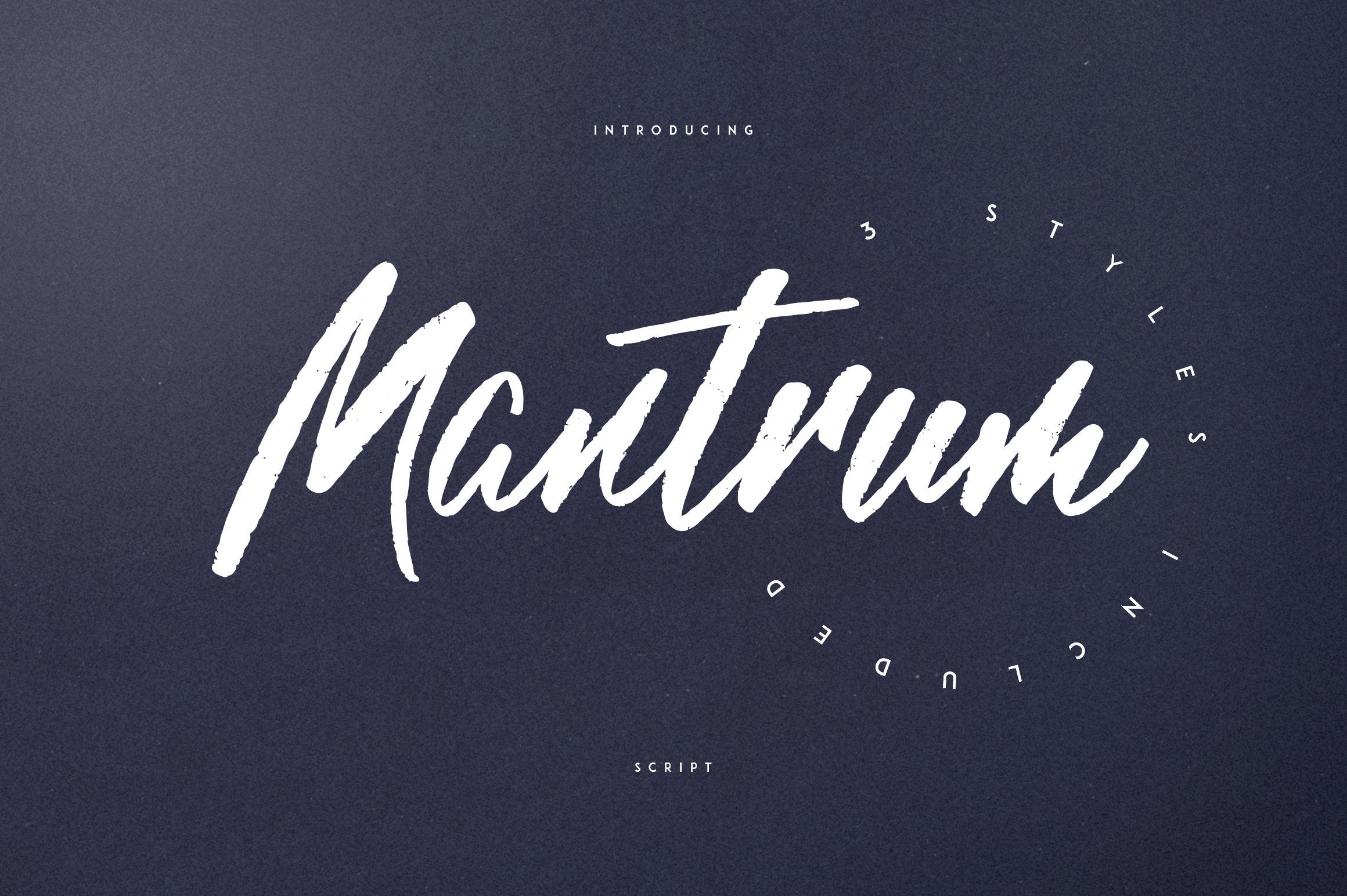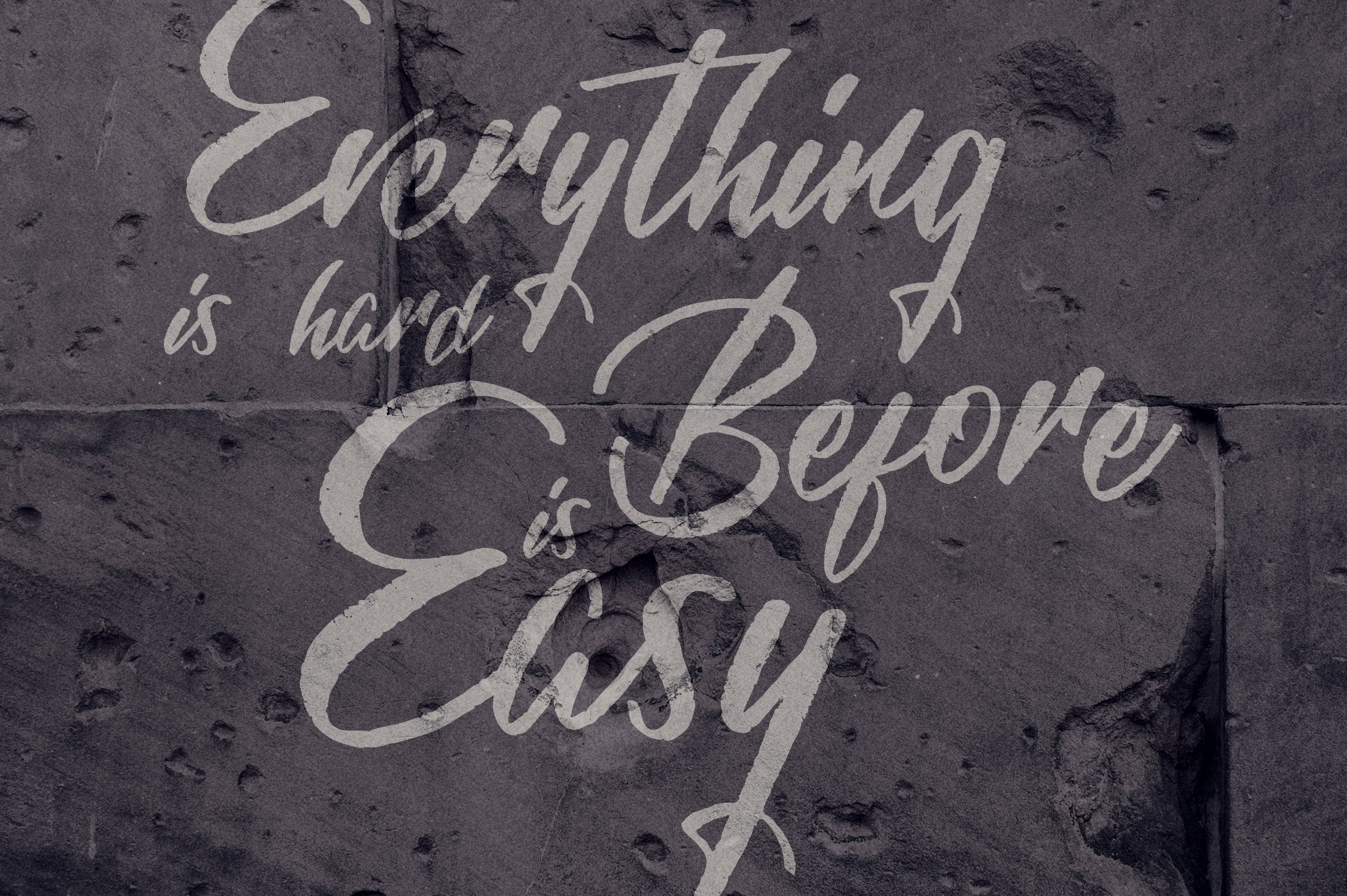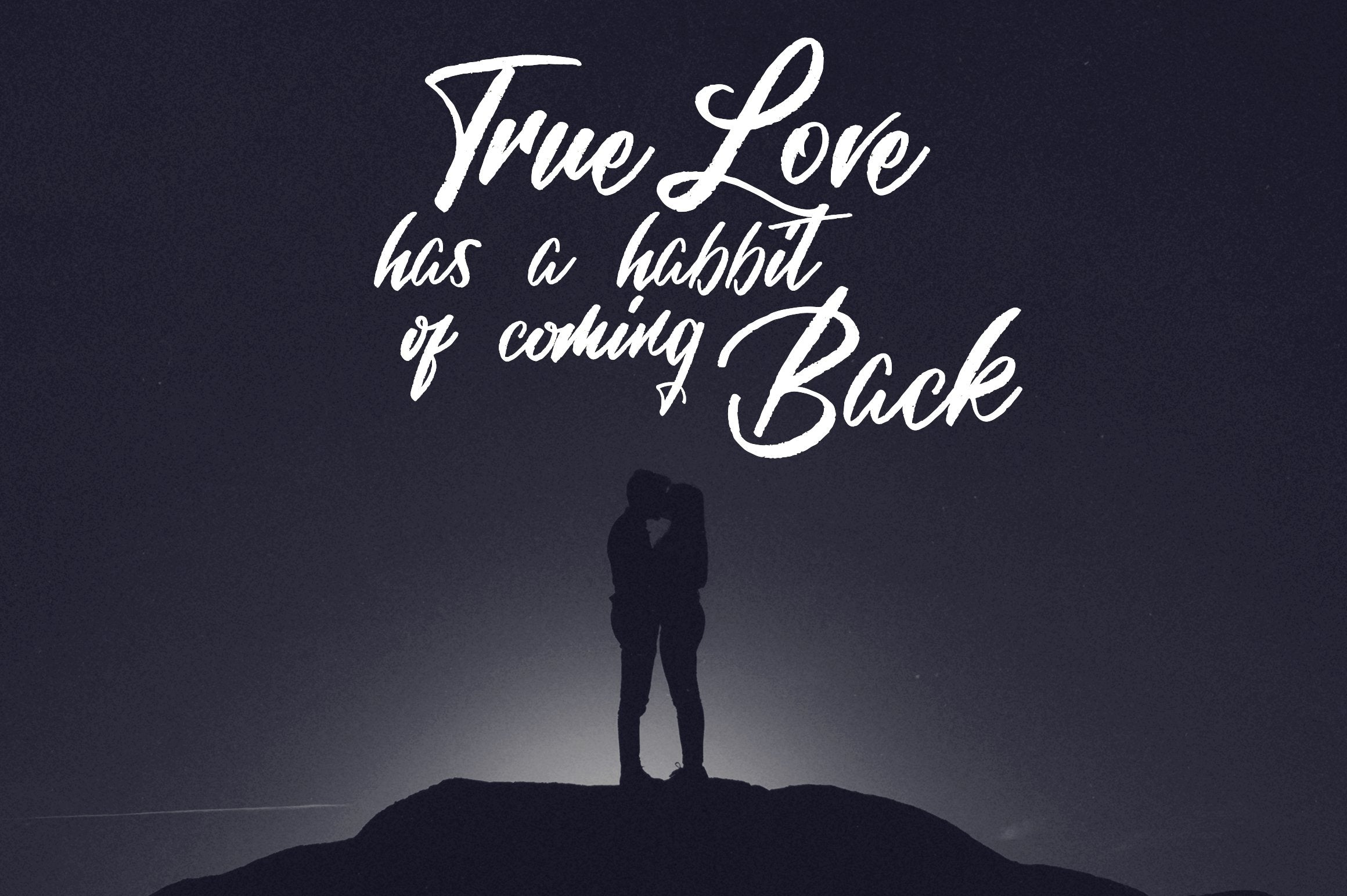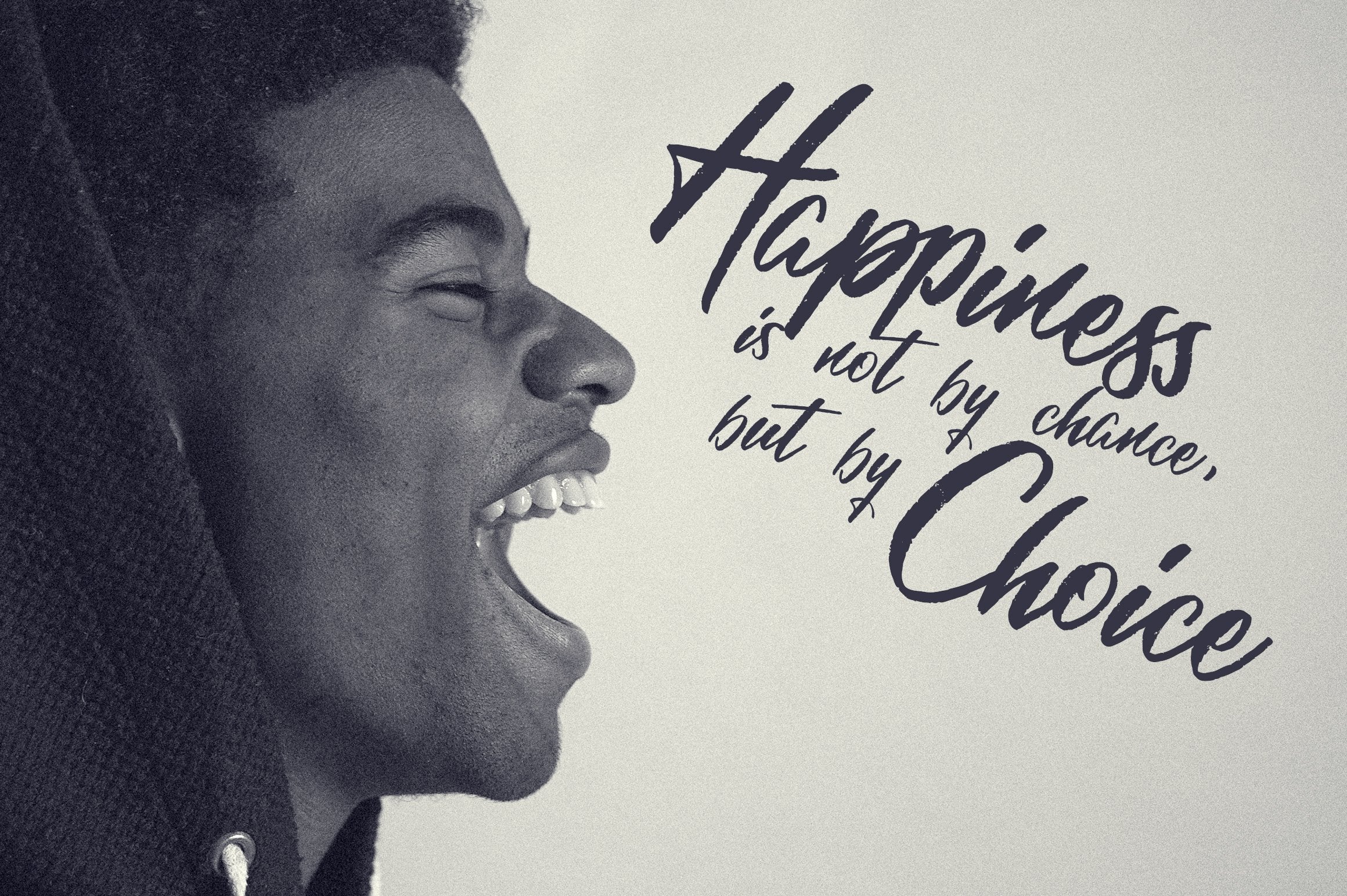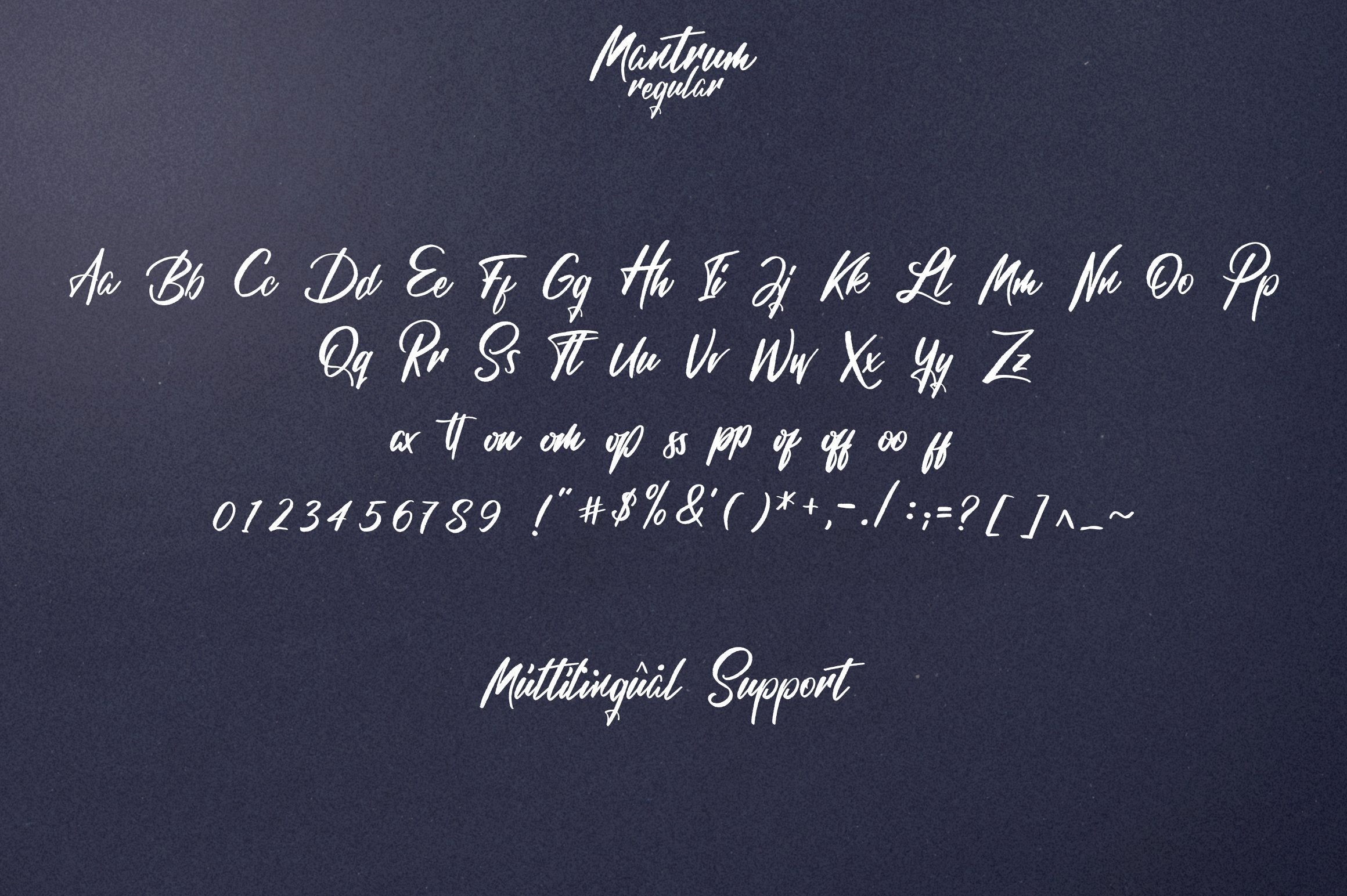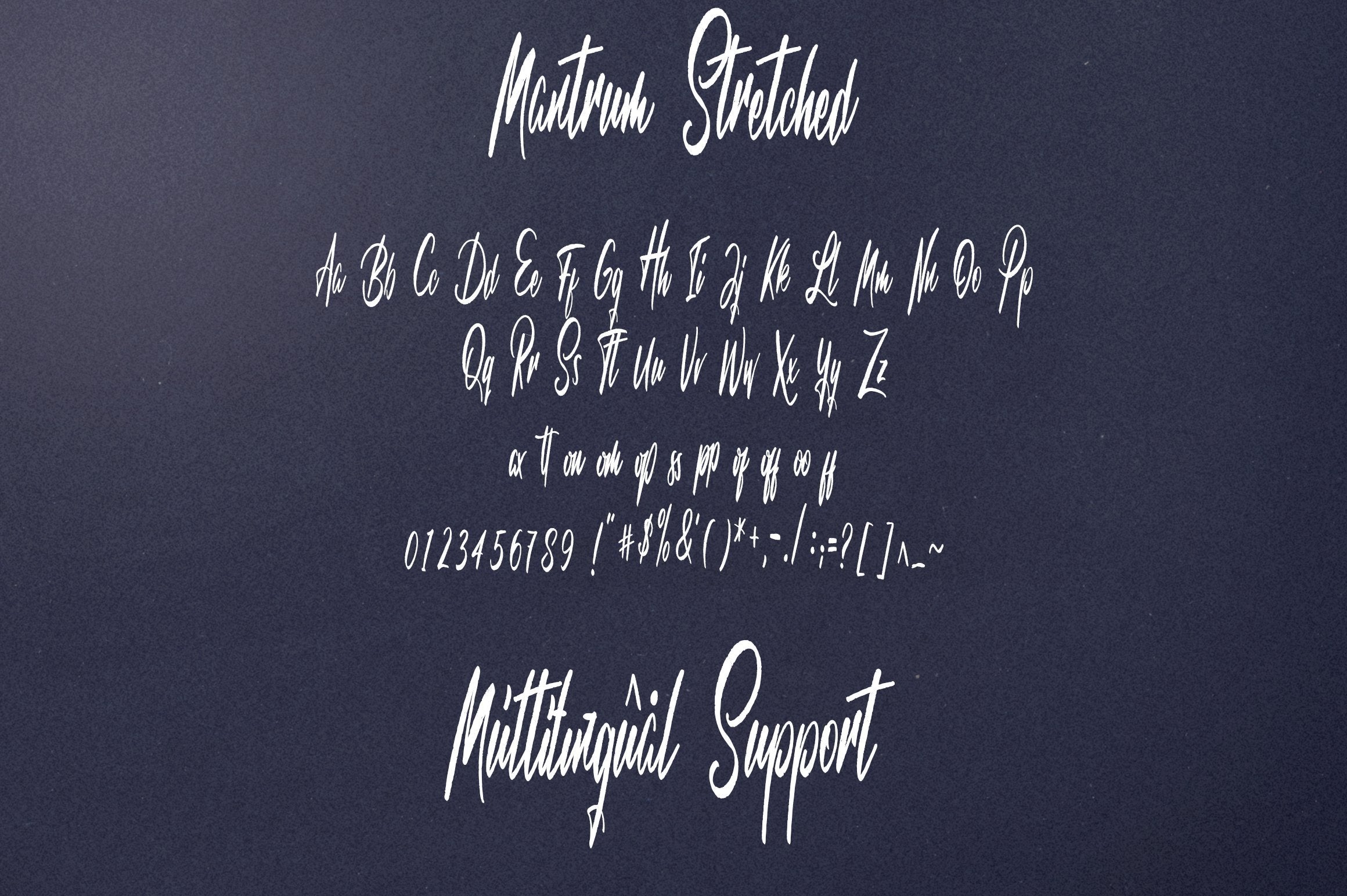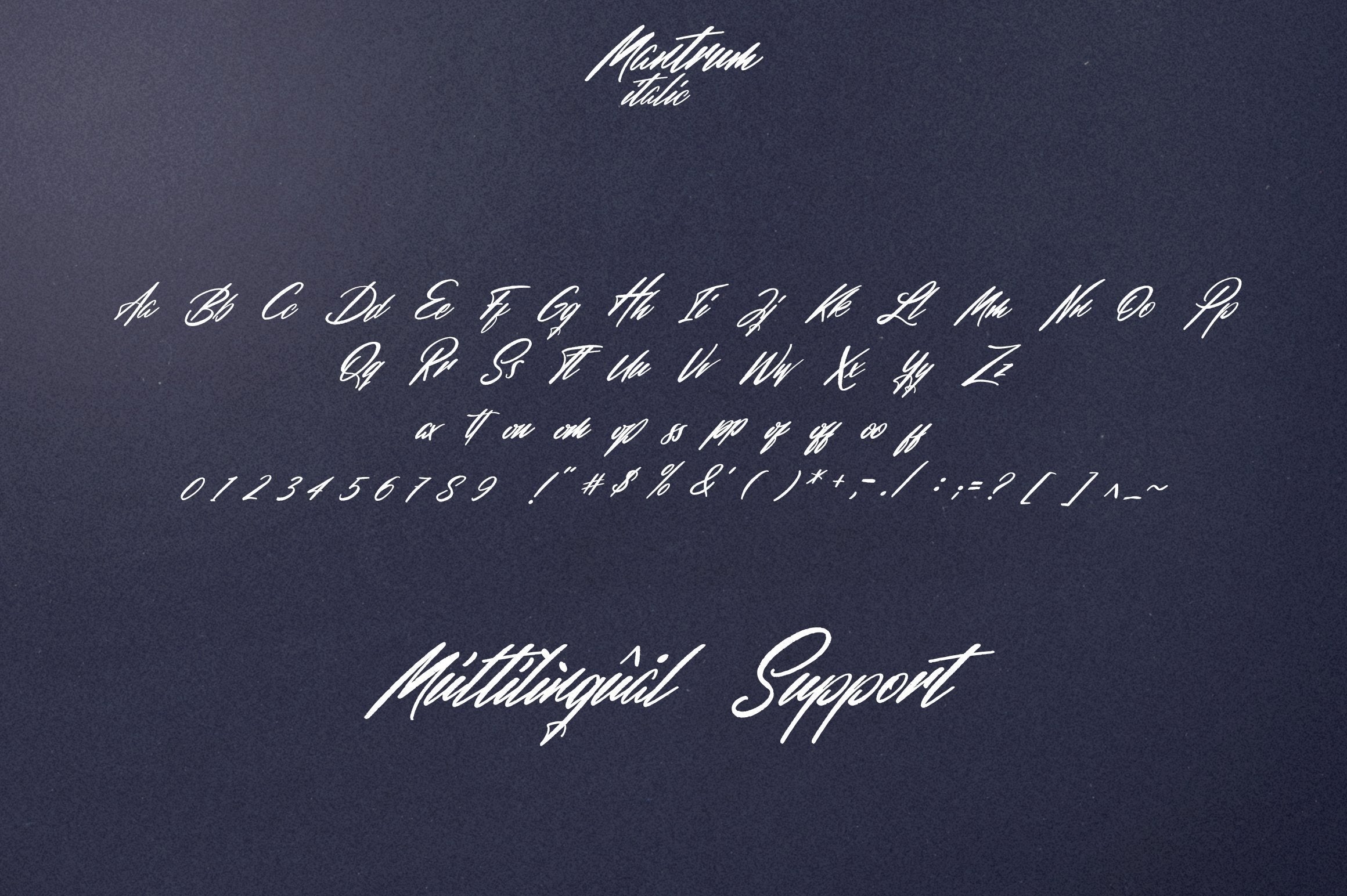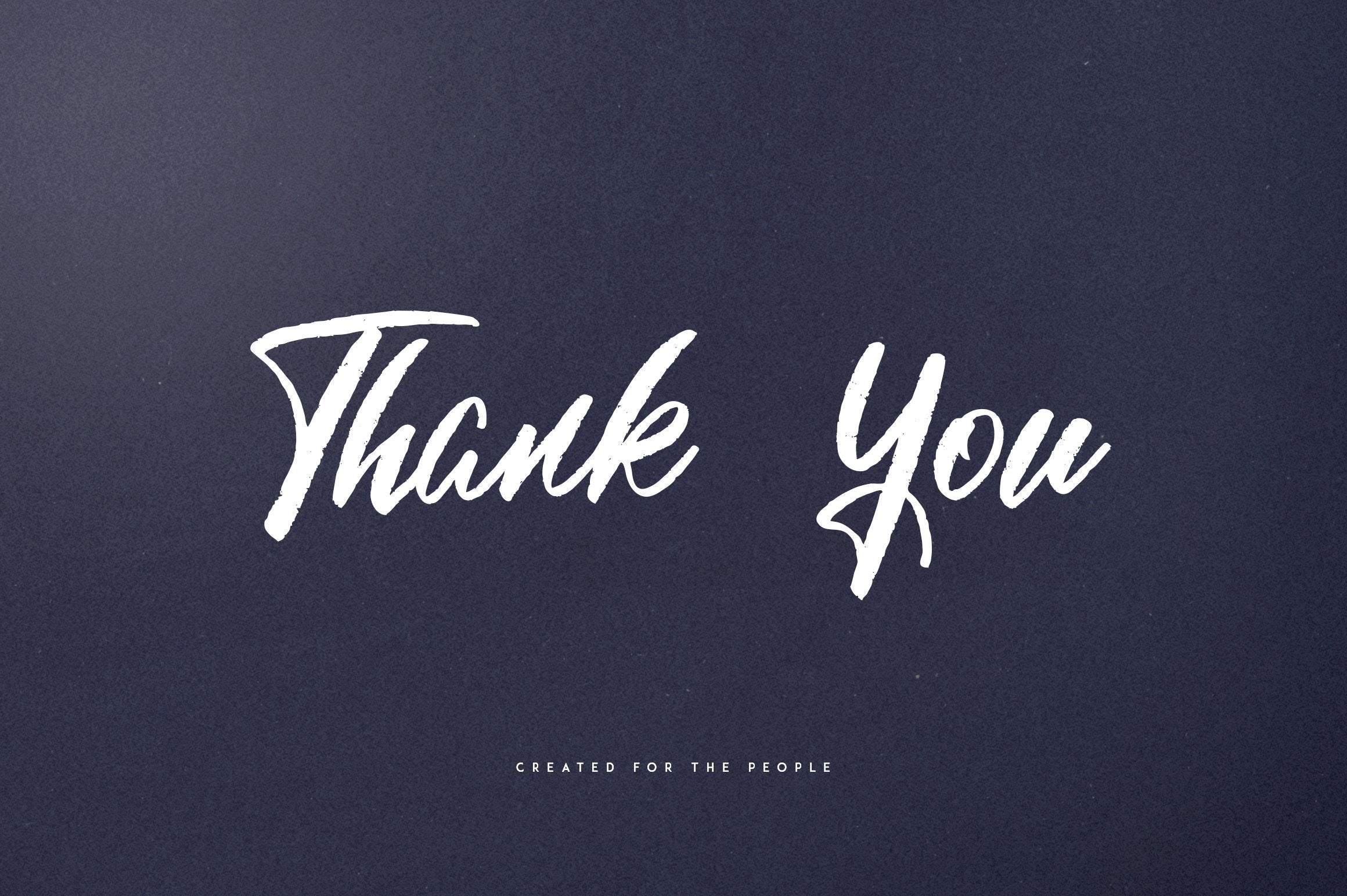
Mantrum – Urban script | 3 styles
About Mantrum – Urban script | 3 styles
Introducing Mantrum urban script – 3 styles Mantrum is grunge, urban script with 3 styles and multilingual support. It’s a very versatile font that works great in large and small sizes. Mantrum is perfect for branding projects, home-ware designs, product packaging, magazine headers – or simply as a stylish text overlay to any background image. Uppercase,lowercase,numeral,punctuation & Symbol Multilingual Regular Italic Stretched Ligatures Feel free to contact me if you have any questions! Mock ups and backgrounds used are not included! Thank you! Enjoy!